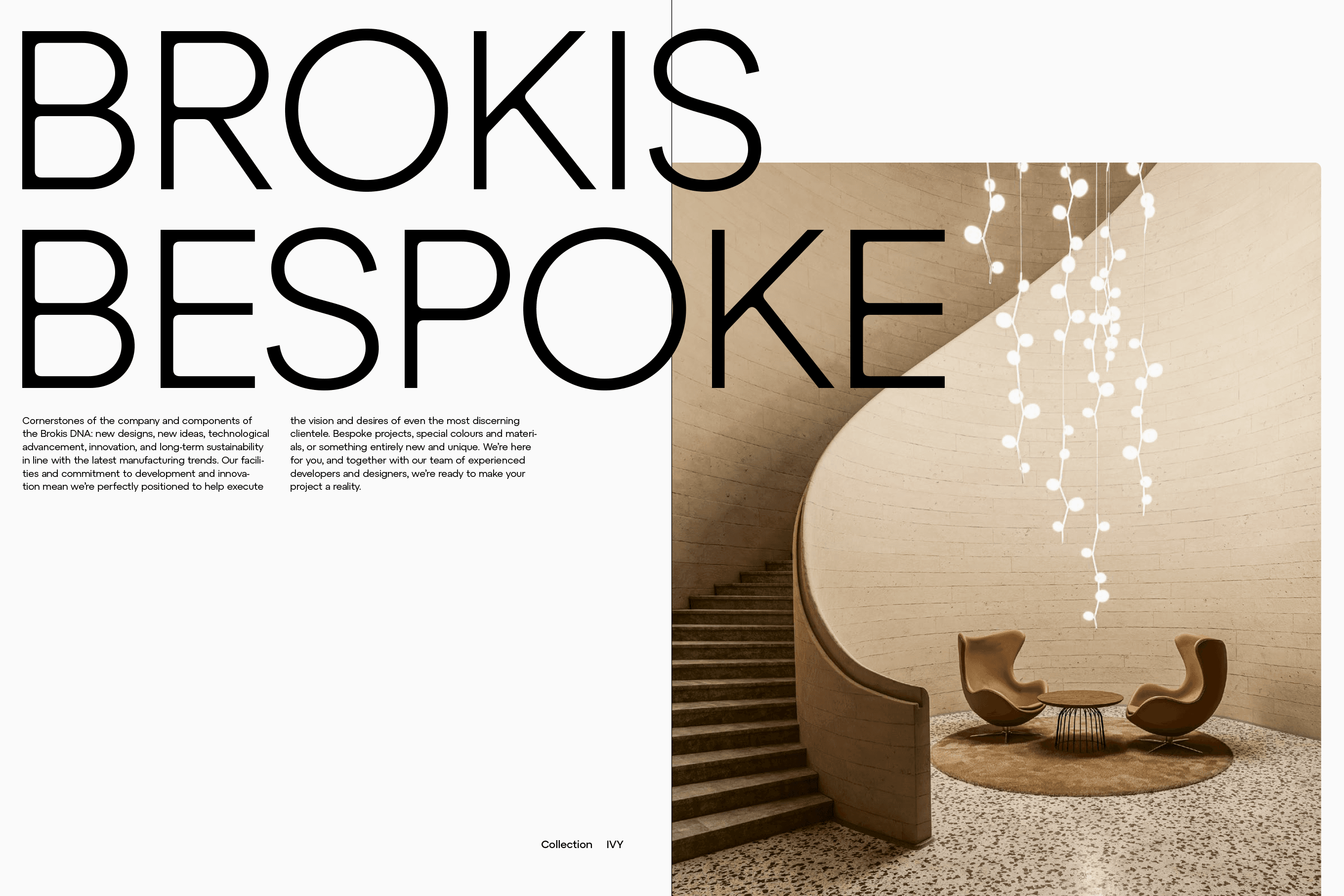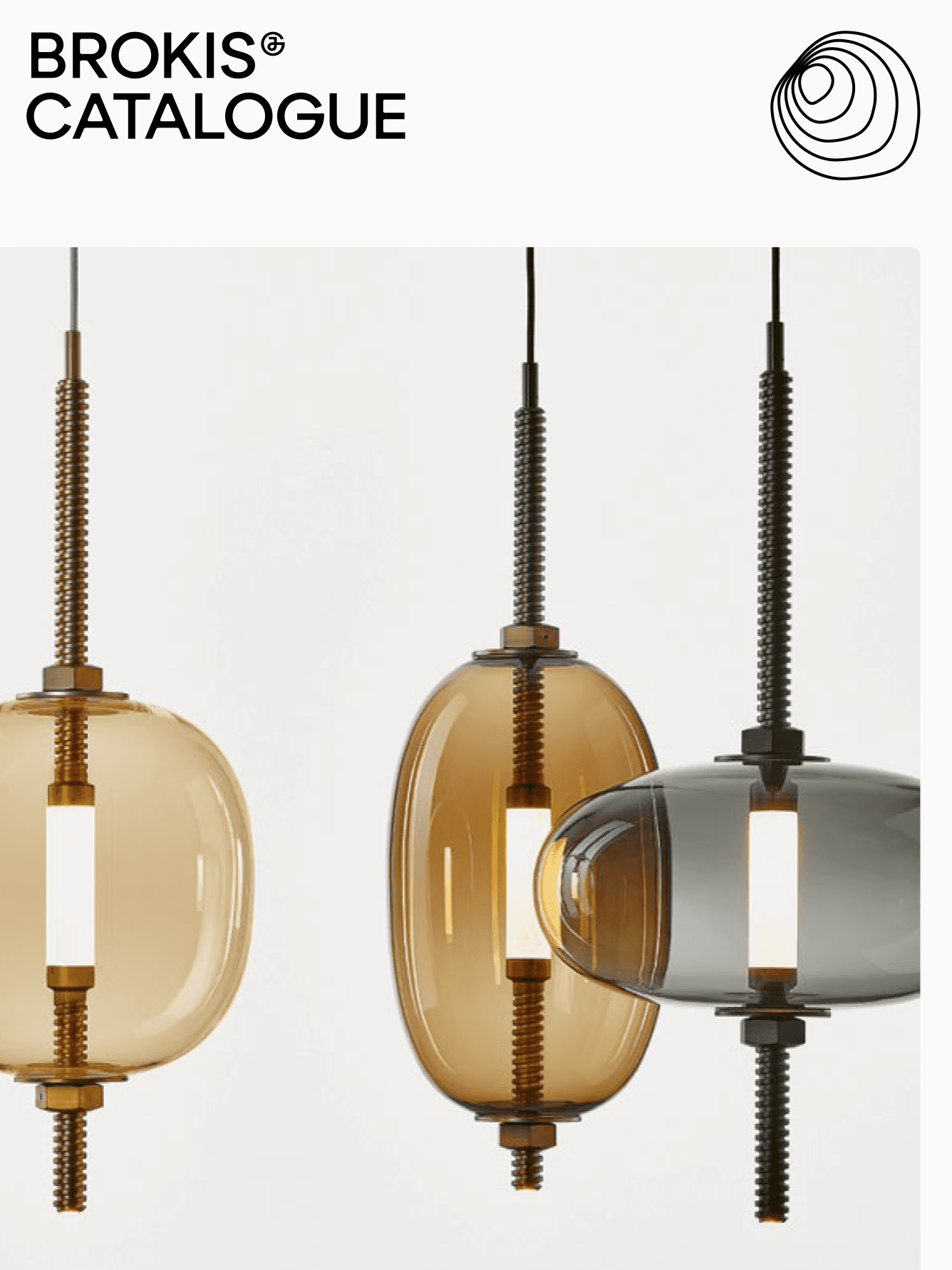
JGG Display
Jenštejn Glass Group (JGG) is a group centered around a historic glassworks whose roots date back to 1809, making it one of the oldest continuously operating glassworks in the Czech Republic. The group comprises several brands and manufacturing operations, including Janštejn Glassworks, Brokisglass, Brokis Solutions, and other specialized production facilities.
For the brand, which uses a modified version of the Atyp typeface as part of its identity, a pair of uppercase display typefaces named JGG Display was developed. The organic rounding of the internal angles of individual characters responds to the shapes traditionally formed in wooden molds used for blown glass production.